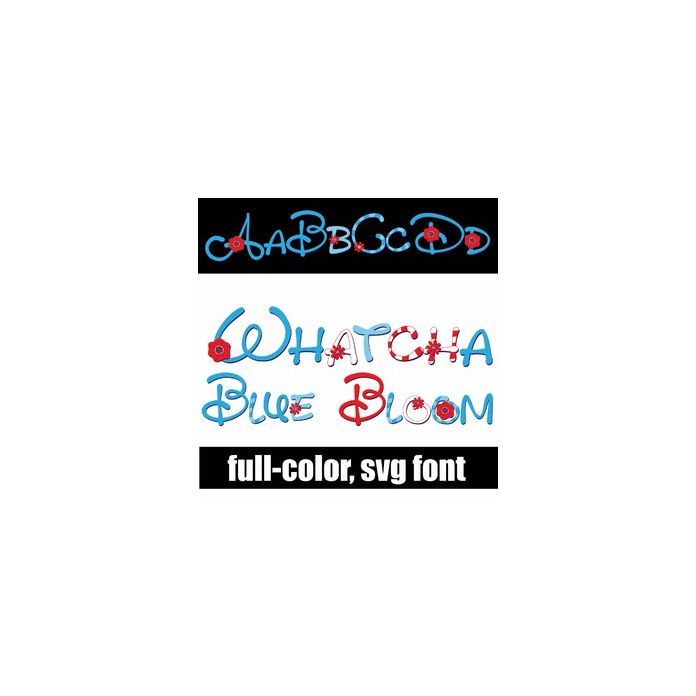
This hand-written, full-color font features red, white, and blue lettering with florals throughout. There is an alt case w/ additional colors you can access through your system or Silhouette's glyph map.